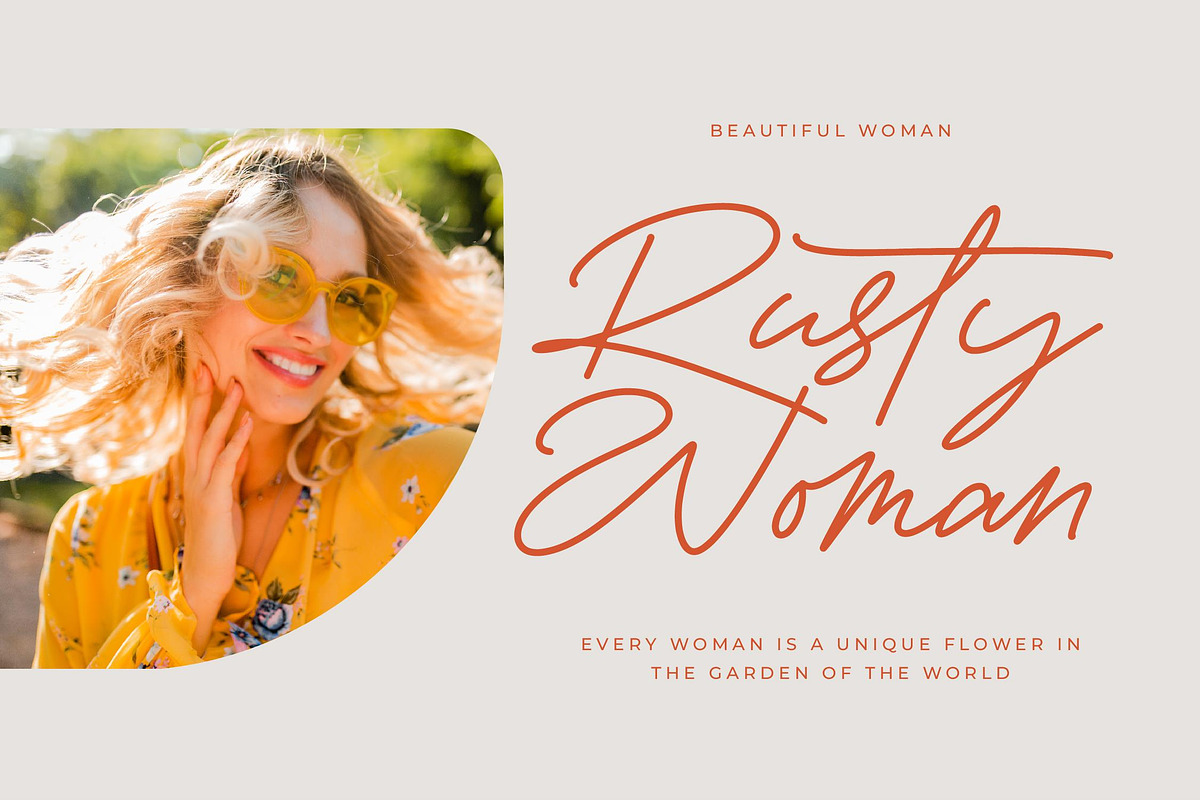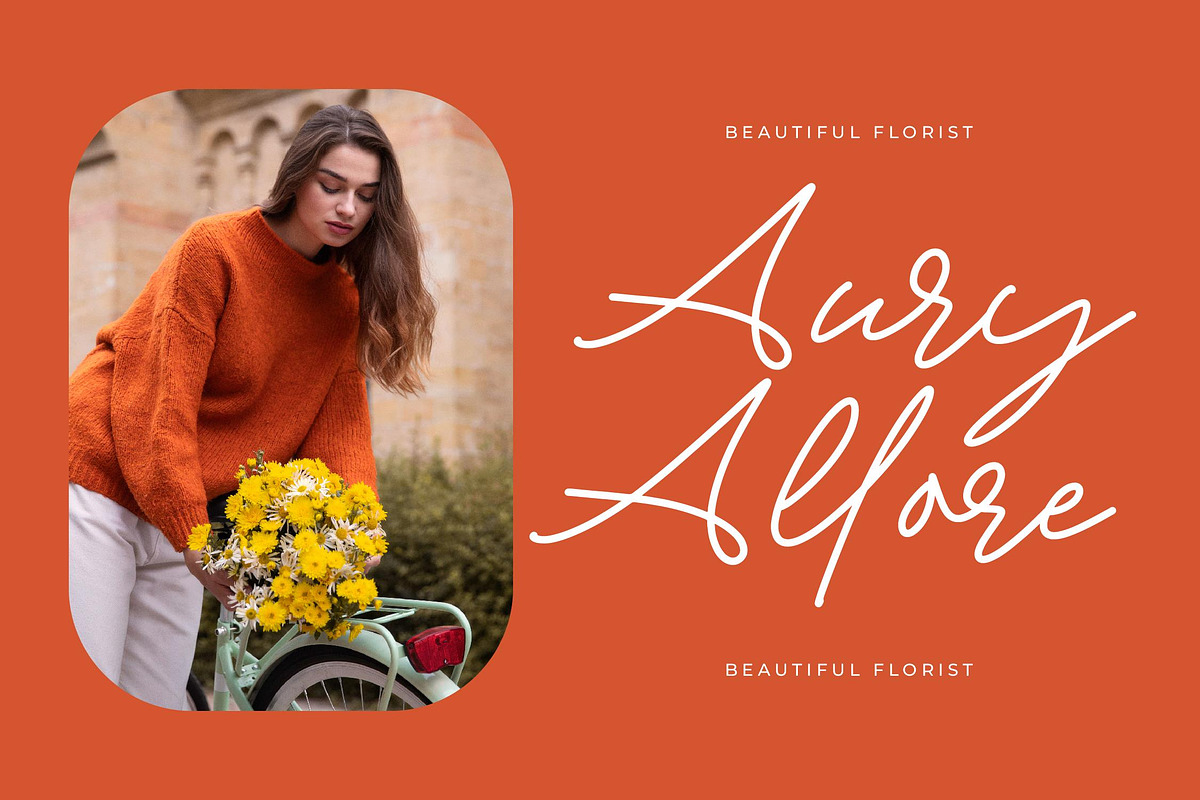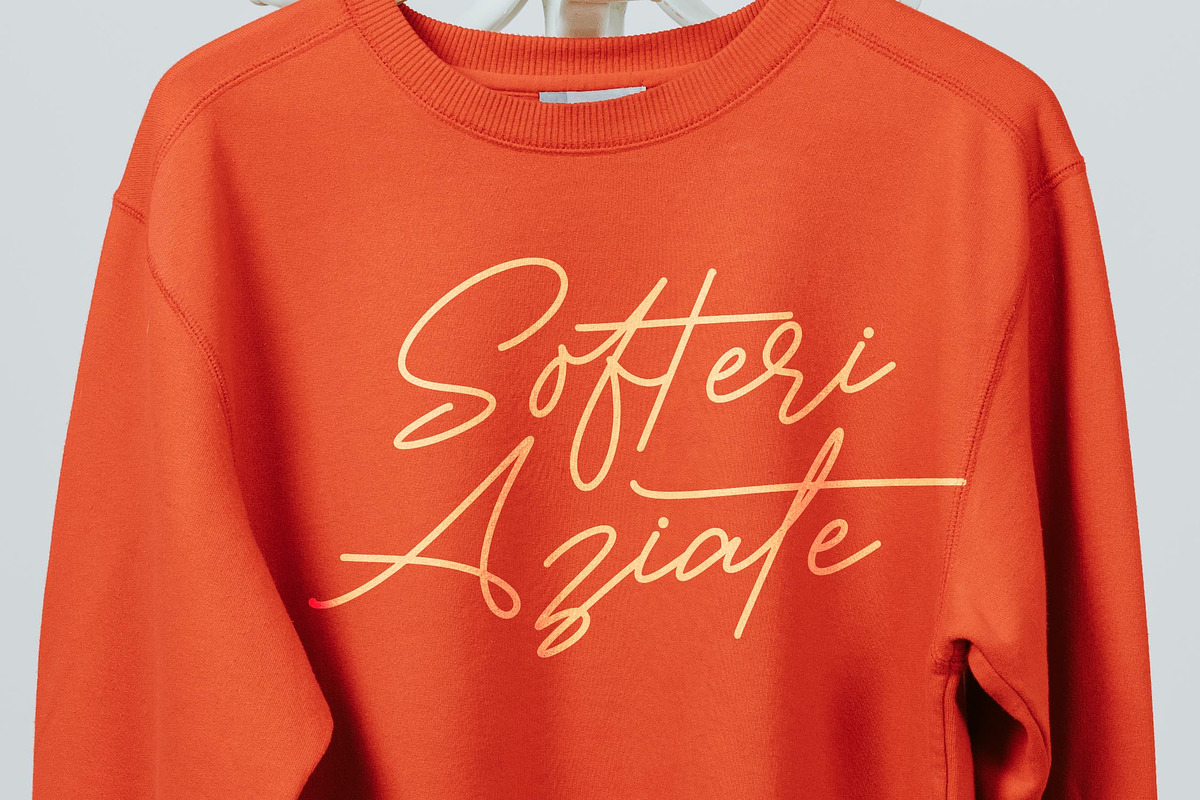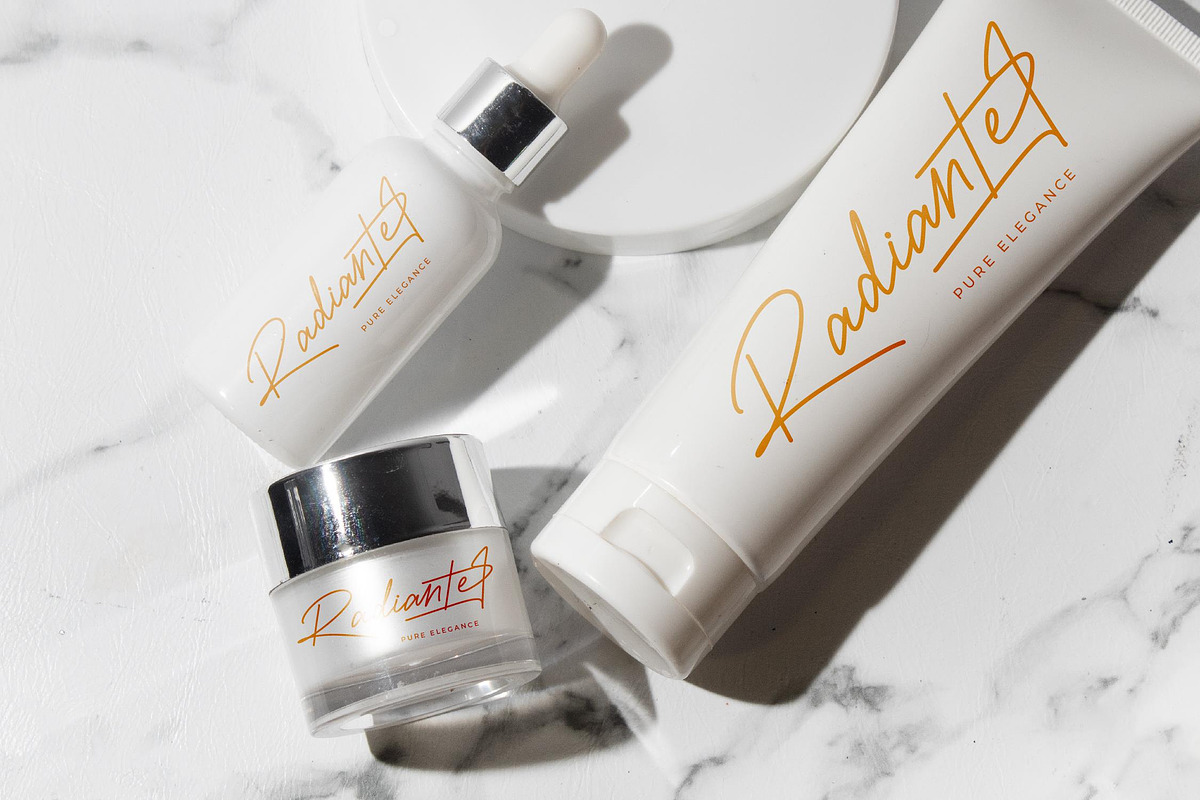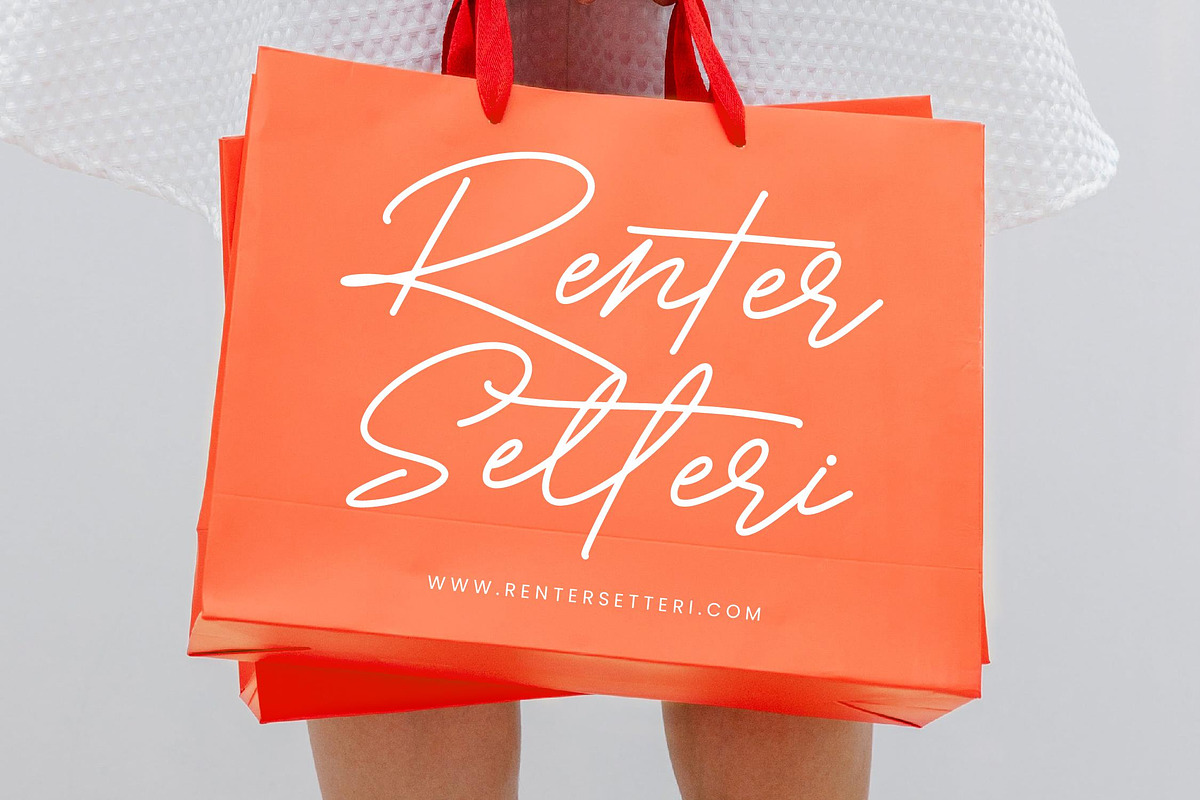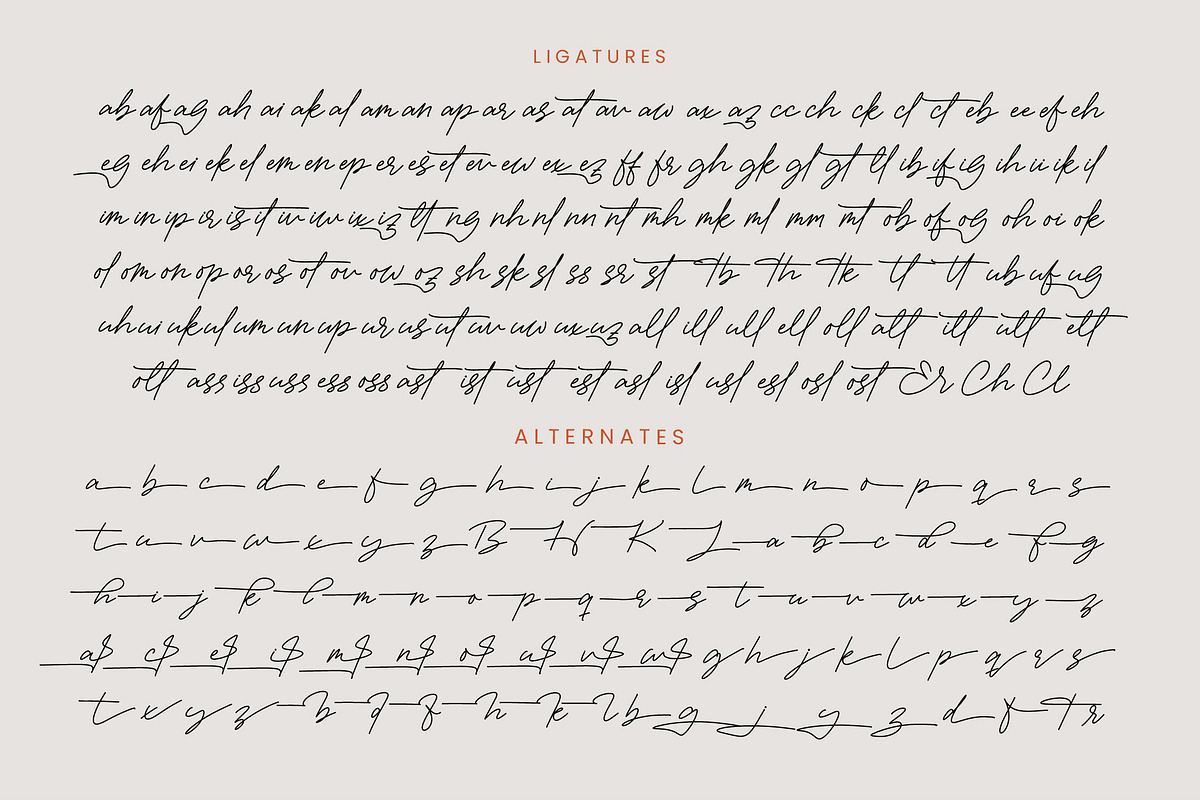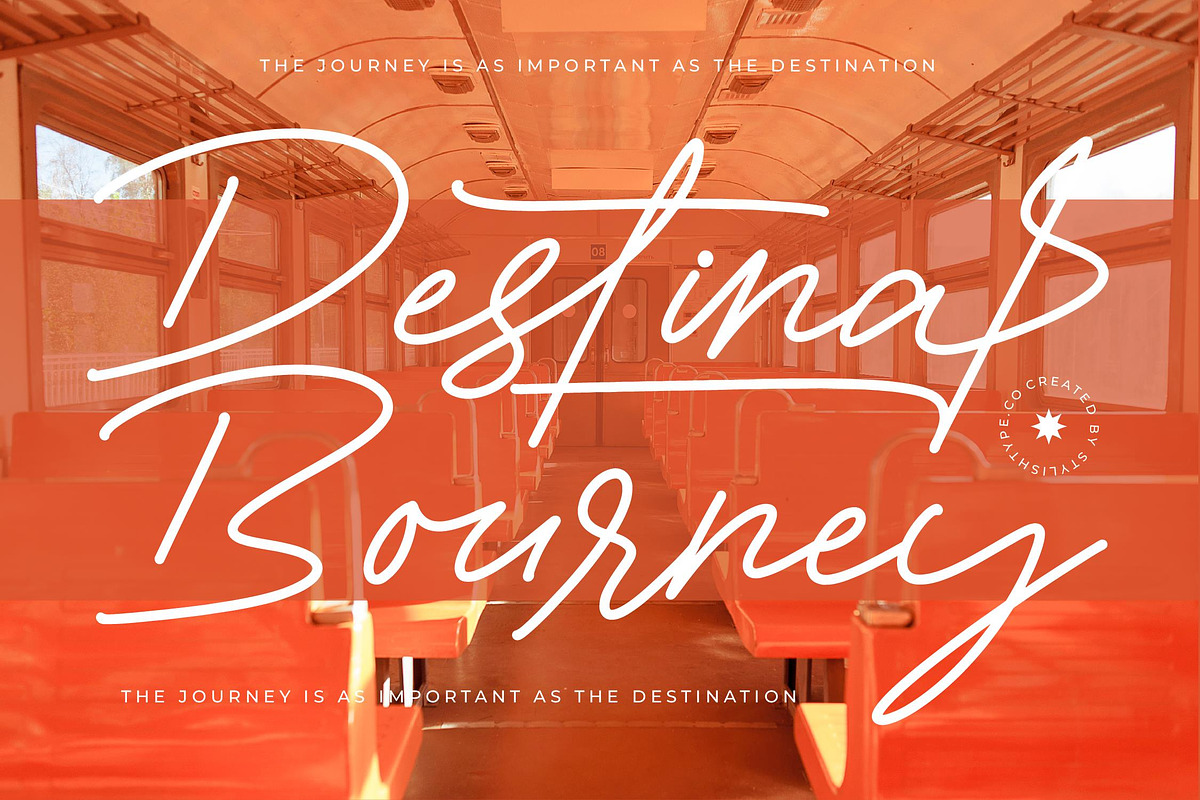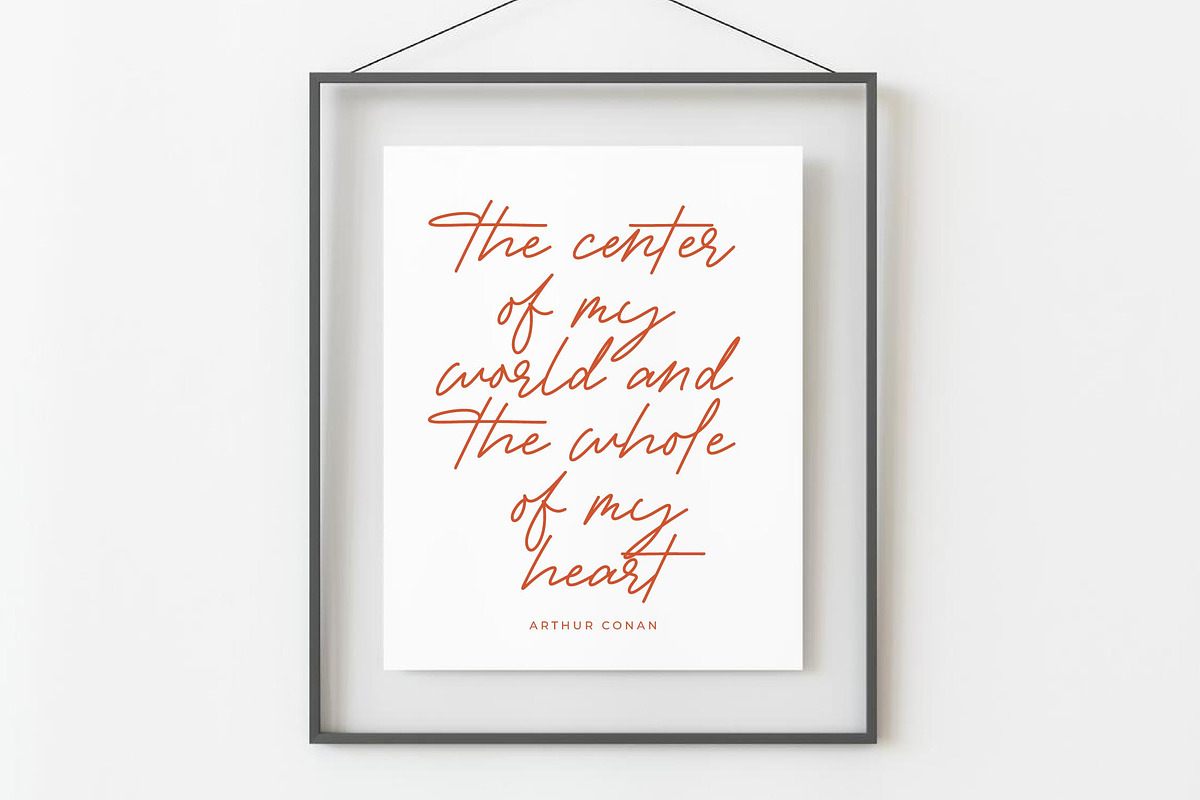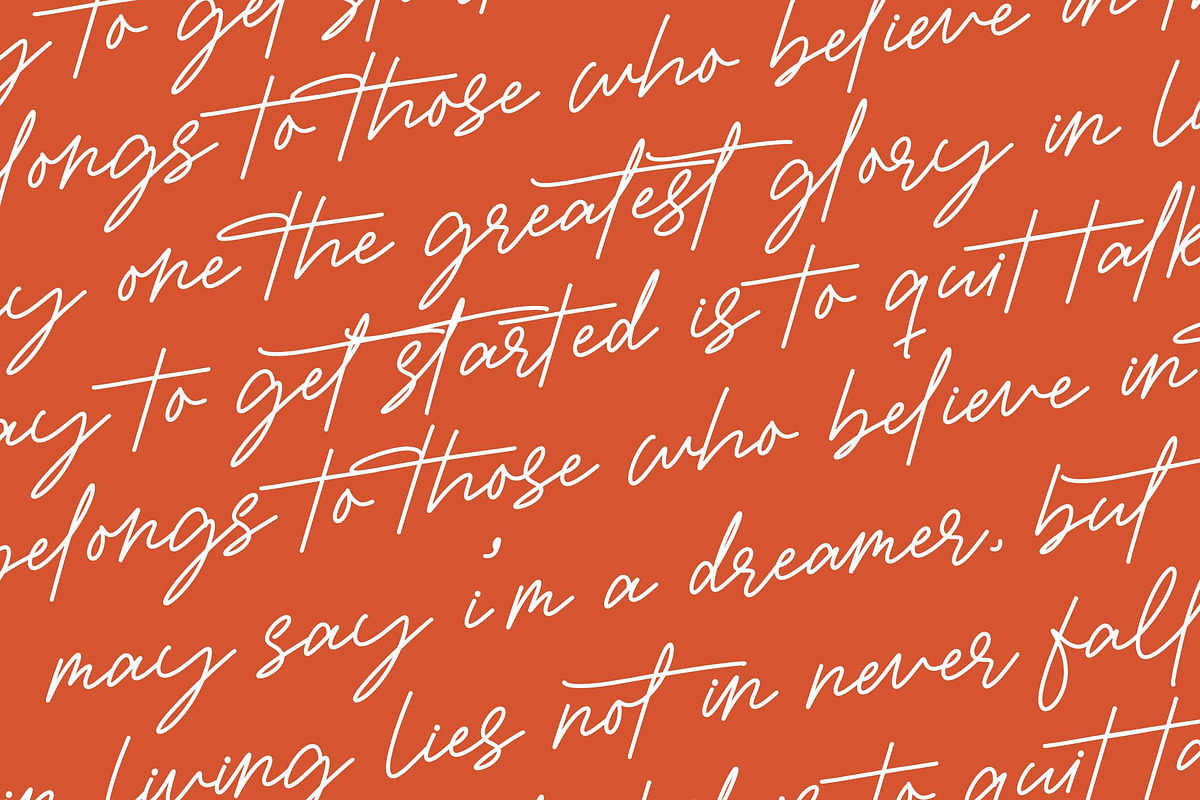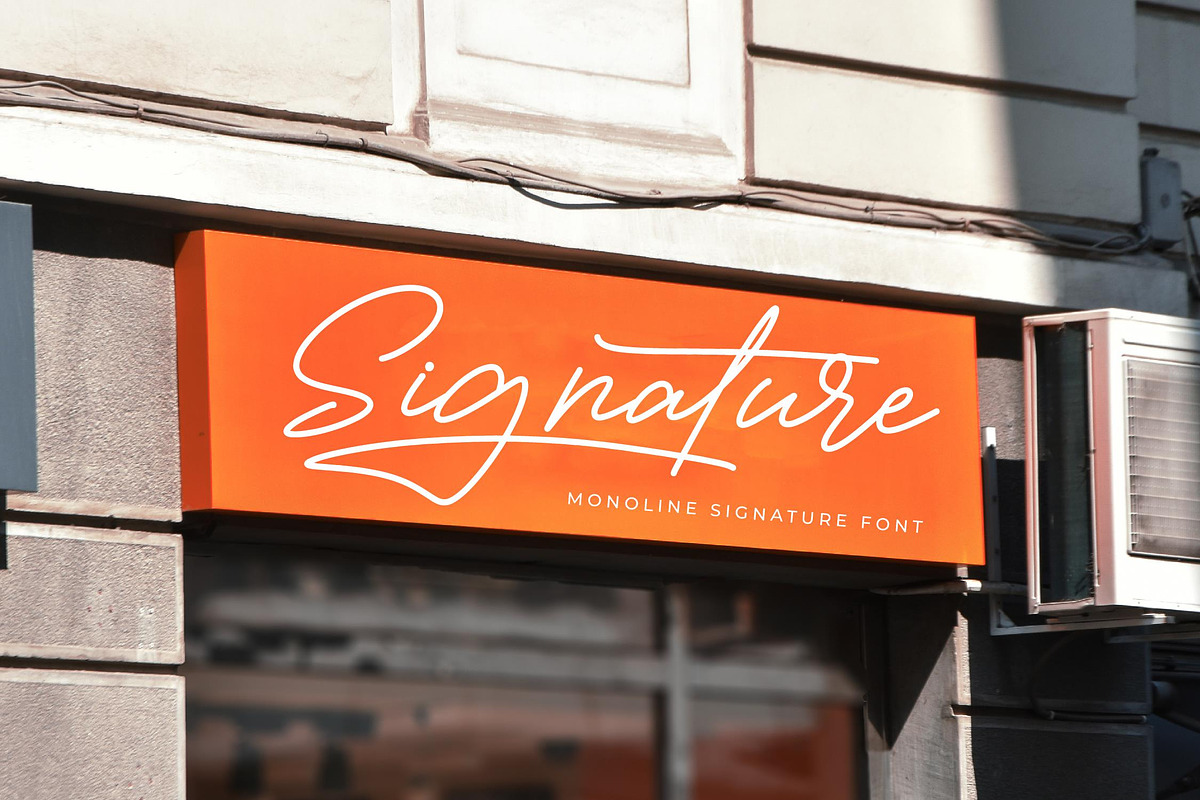
Victoria Montera Monoline Signature
Victoria Montera - Monoline Signature Font , from Stylishtype.Co , Suitable for any projects such as: logos, branding projects, homeware designs, product packaging, mugs, quotes, posters, shopping bags, t-shirts, book covers, name card, invitation cards, greeting cards, label, photography, watermark, special events, and all your other luxury and beautiful projects that need a Luxury Script taste.
- 151 Ligature 94 Alternates & 9 Swashes